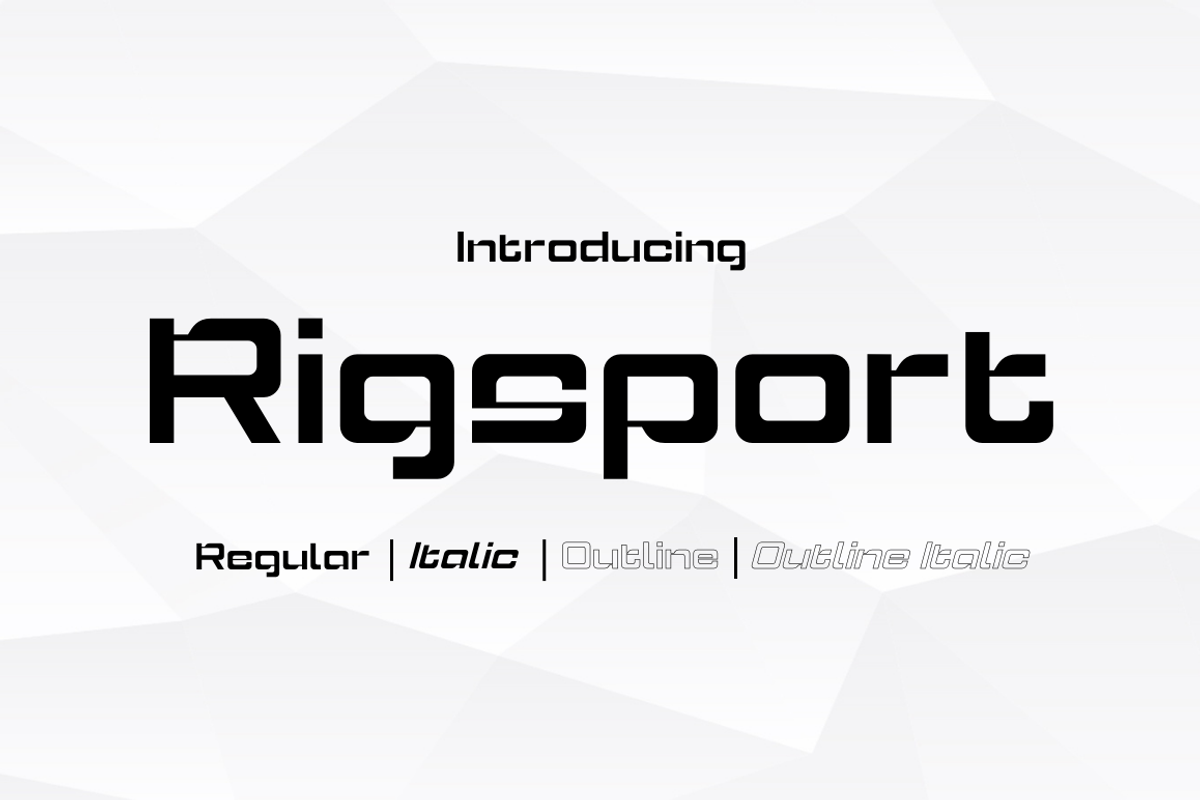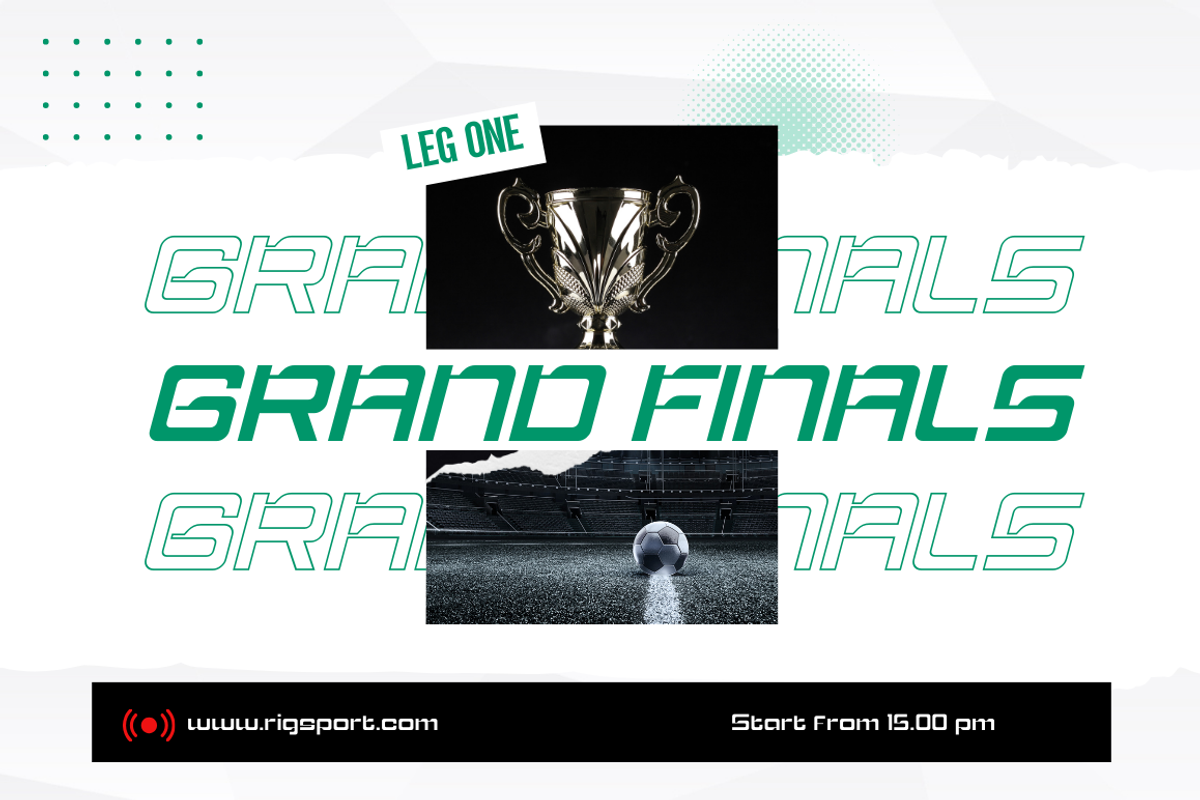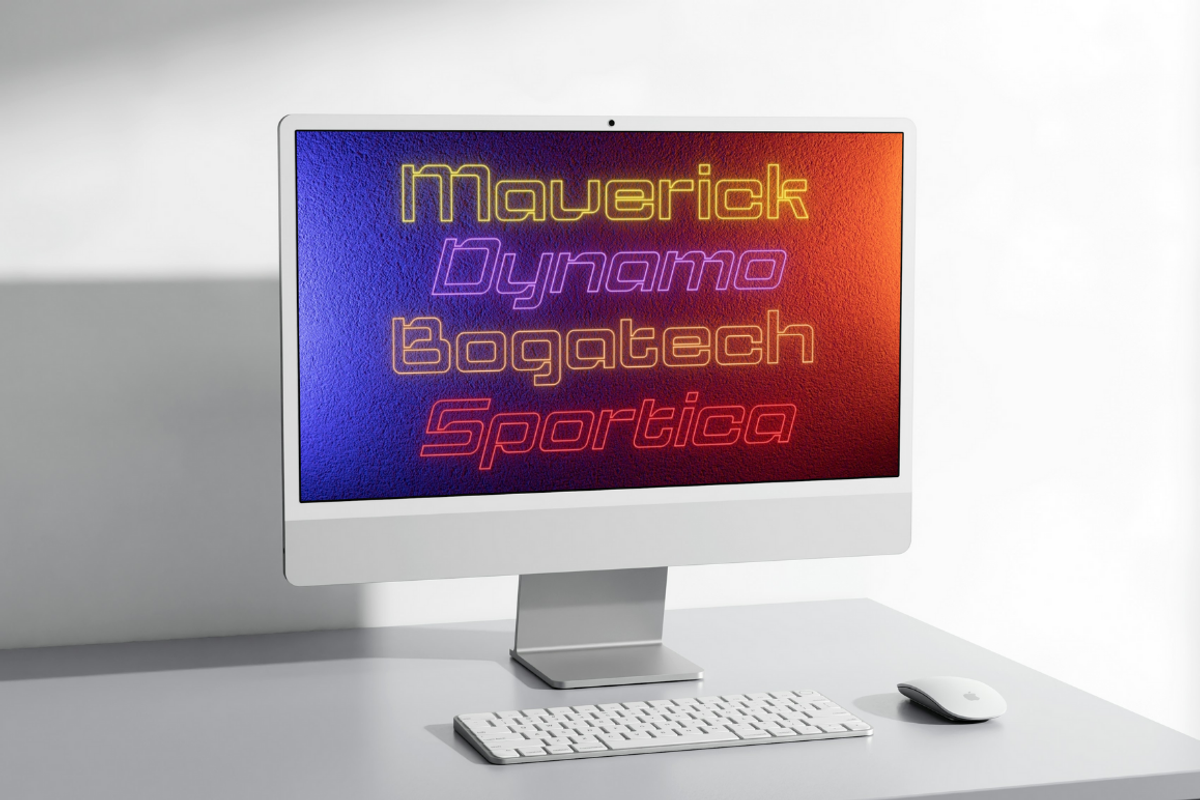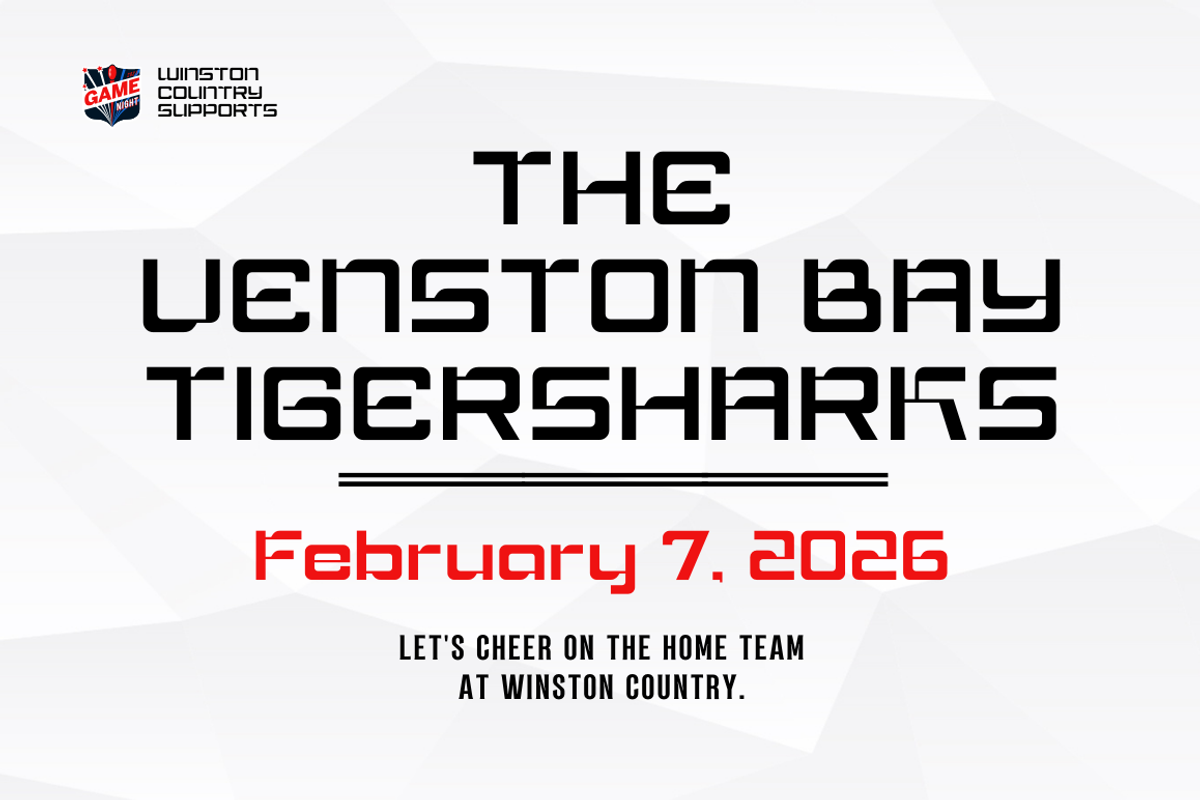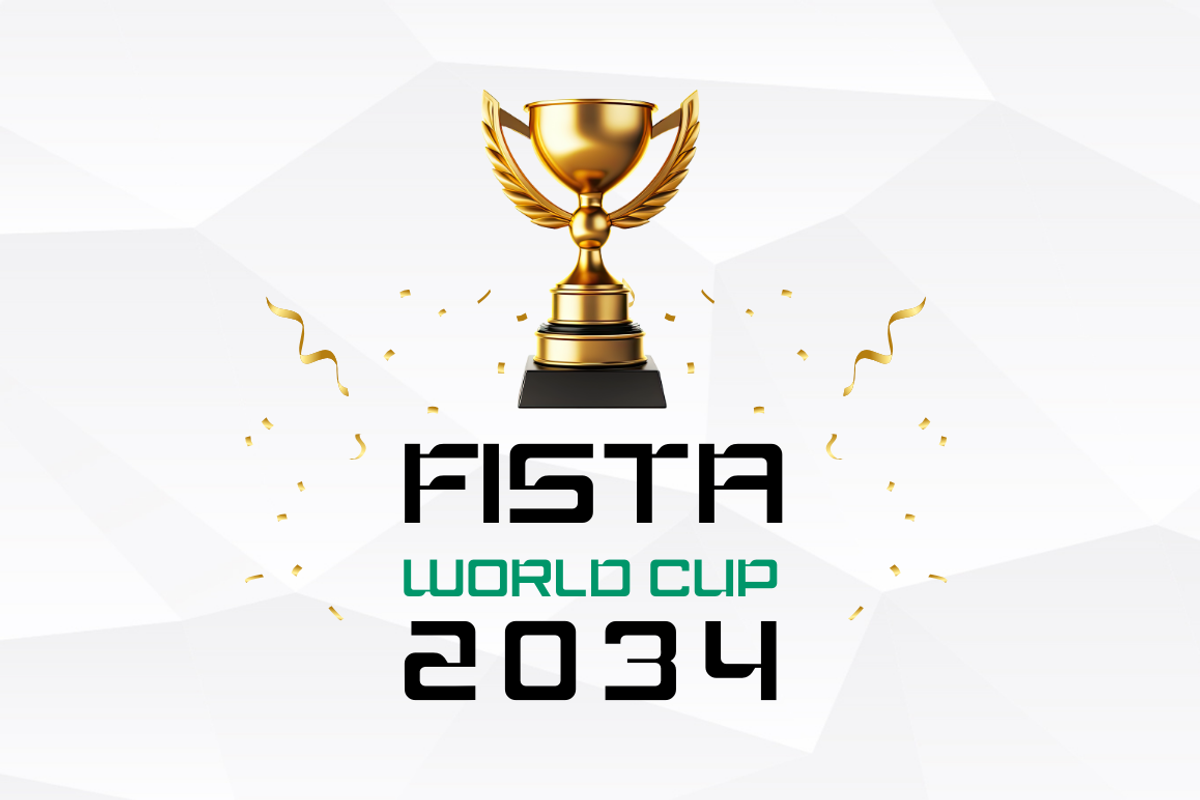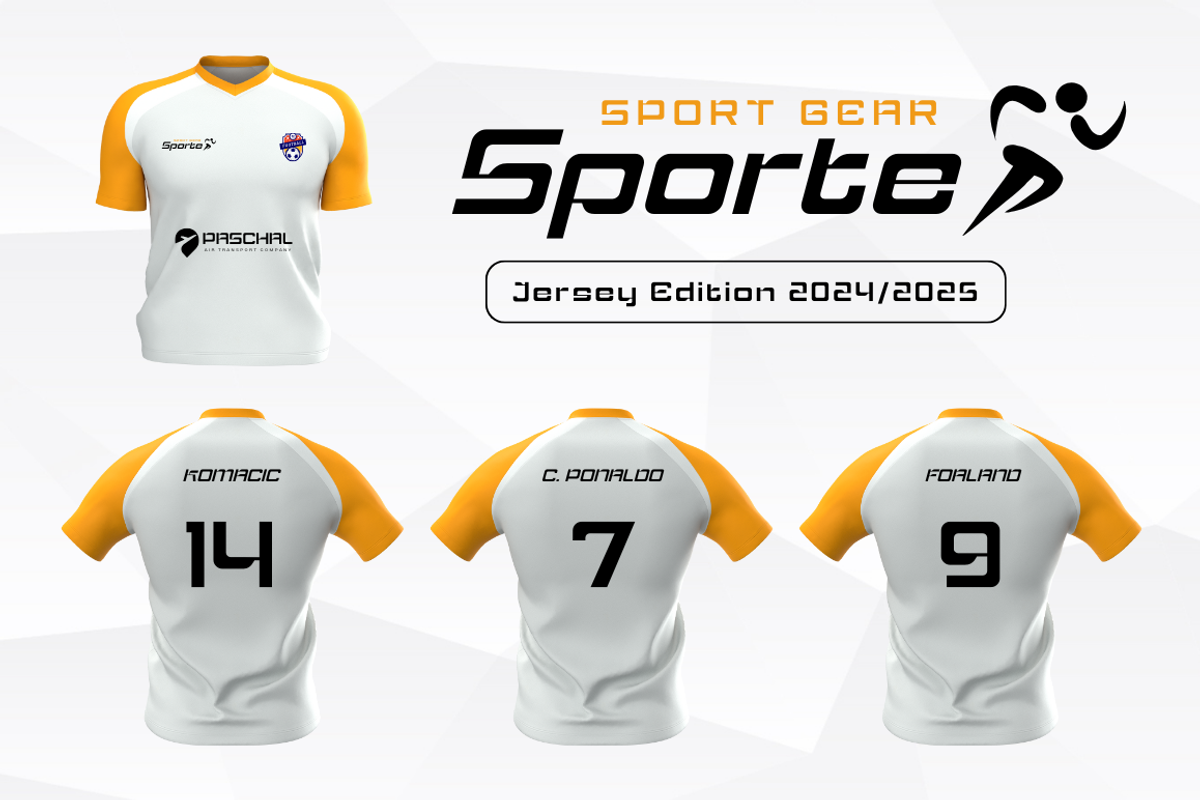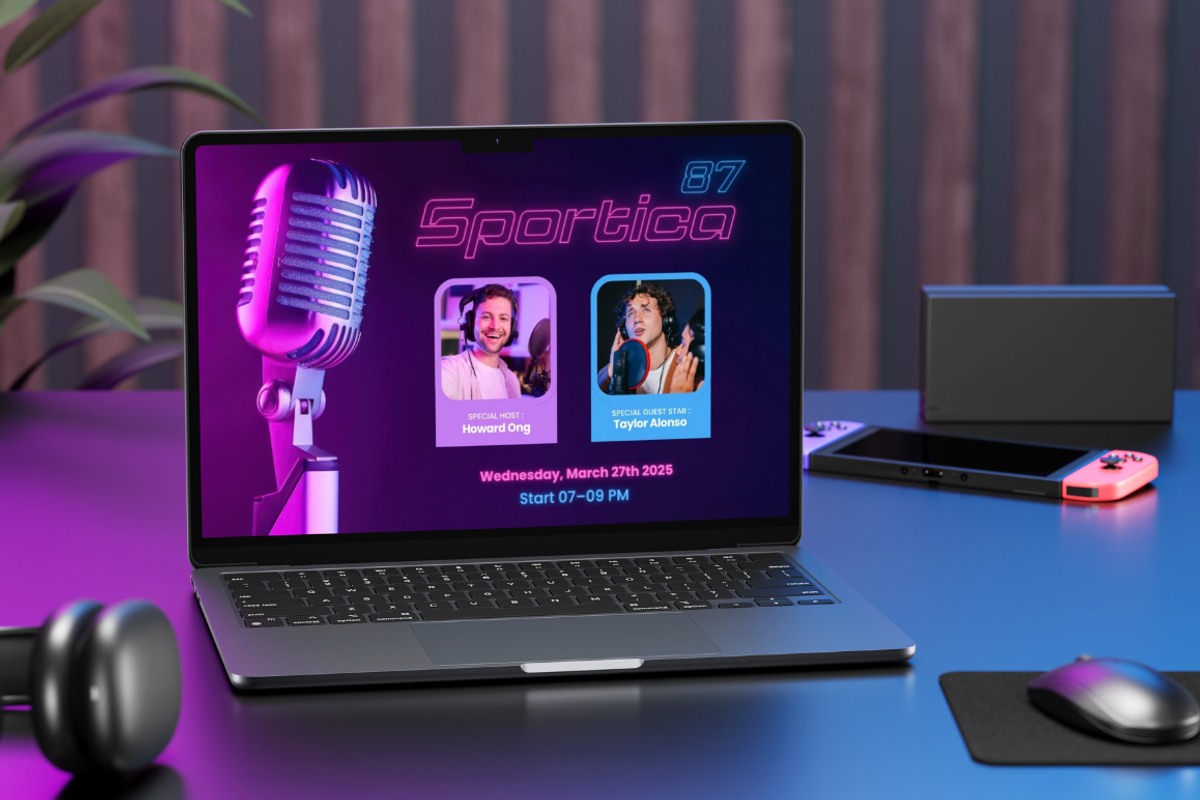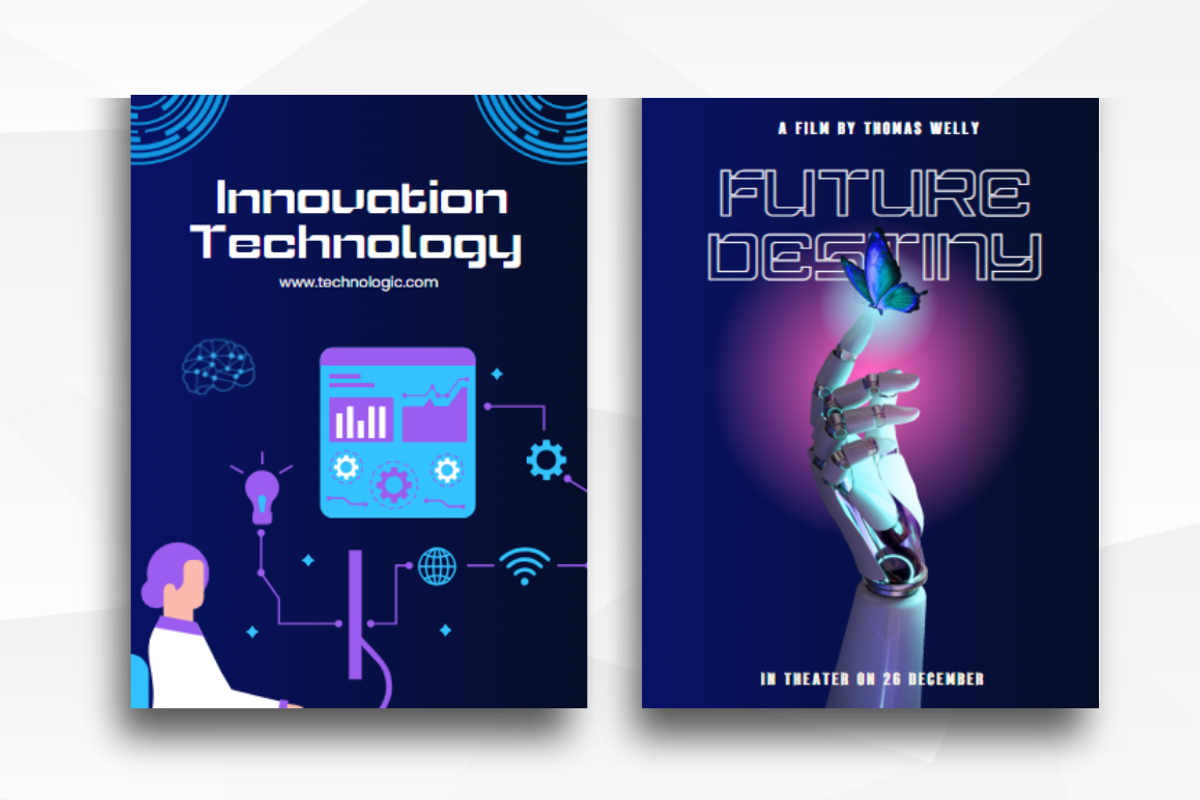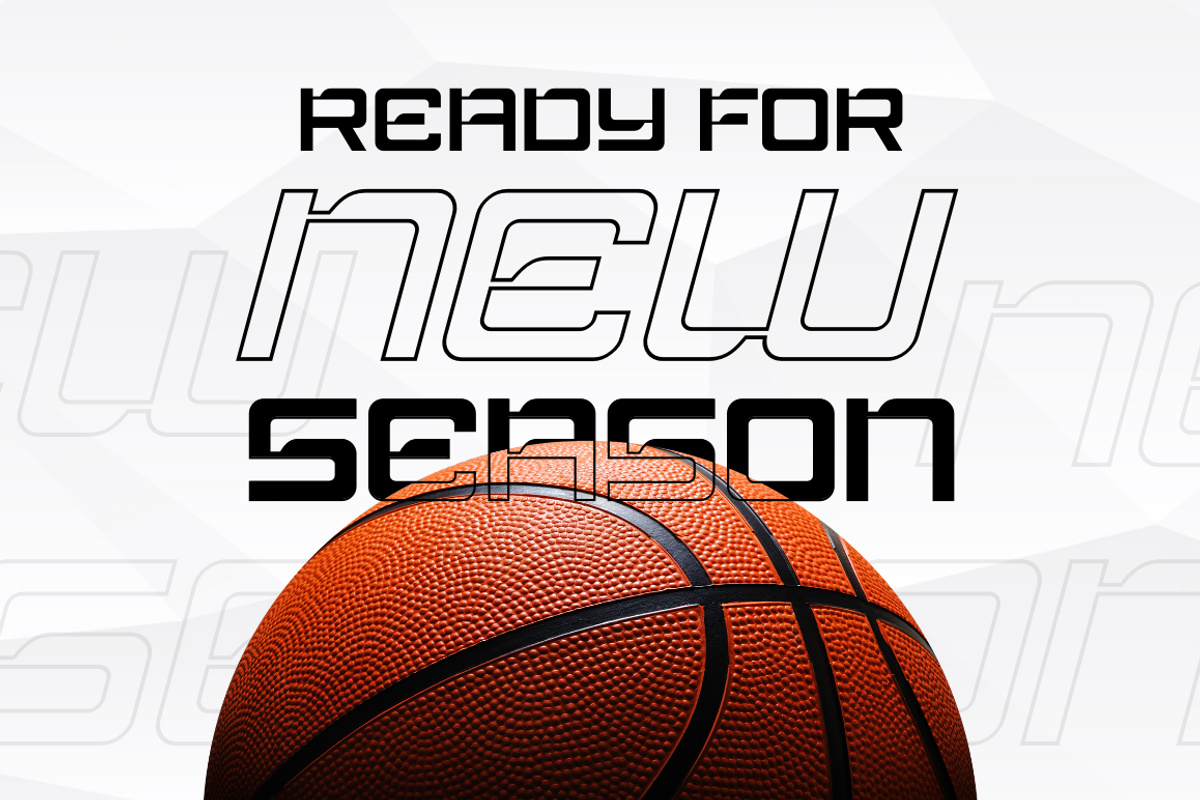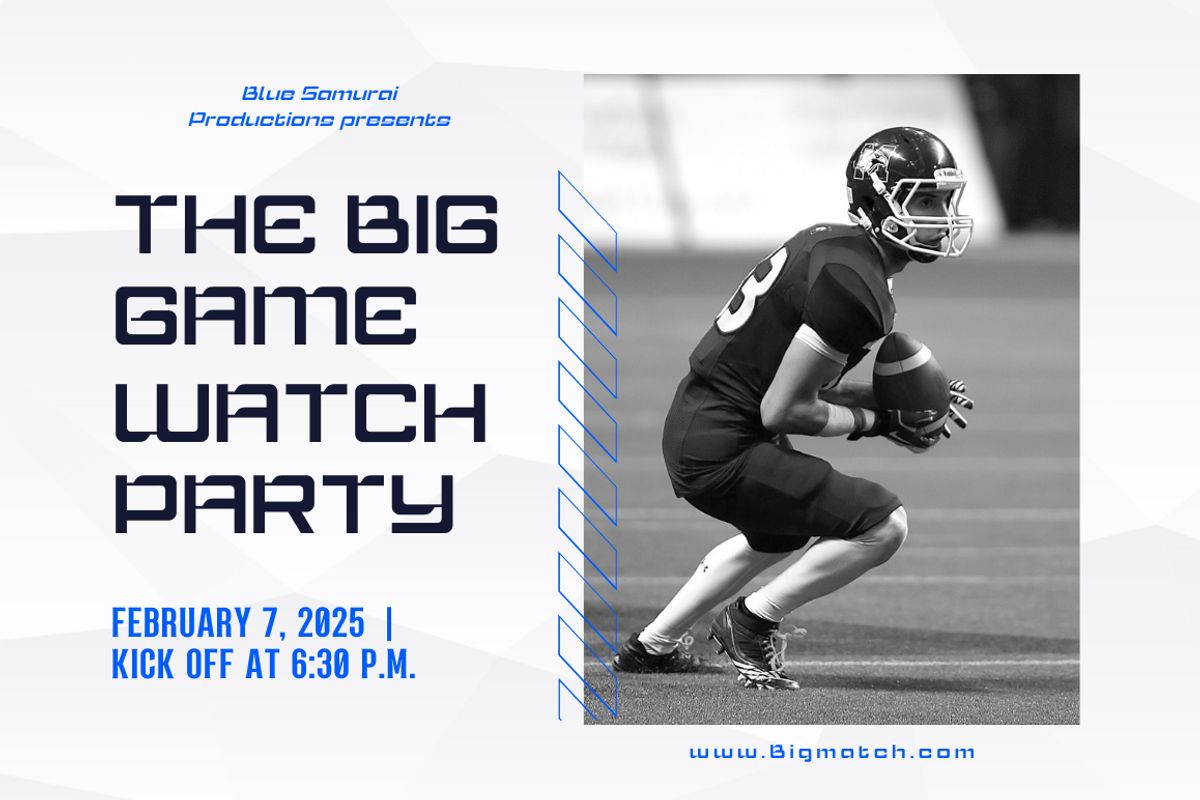
Rigsport – Sporty Futuristic Font
Introducing “Rigsport,” a font that merges athleticism with futurism for a dynamic typographic experience. With its sleek lines and sharp edges, this font embodies the energy and innovation of sports in the future. Perfect for projects that require a bold and futuristic aesthetic, such as sports logos, event posters, or athletic branding. “Rigsport” adds a touch of dynamism and modernity to your designs, ensuring they capture the spirit of athleticism and innovation.Rigsport